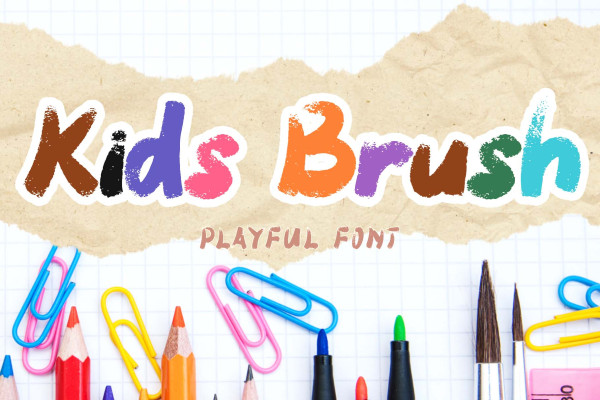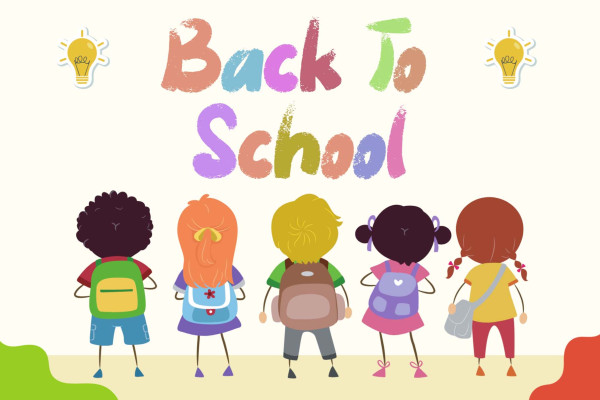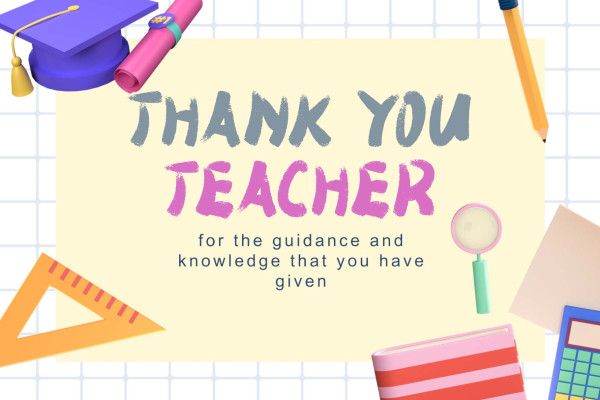
Kids Brush Font
Kids Brush Font is a playful font, a handwritten brush font with a youthful spirit. This hand-drawn font has a boho feel that is great for posters, magazine covers, logo design, wall art, and so much more.